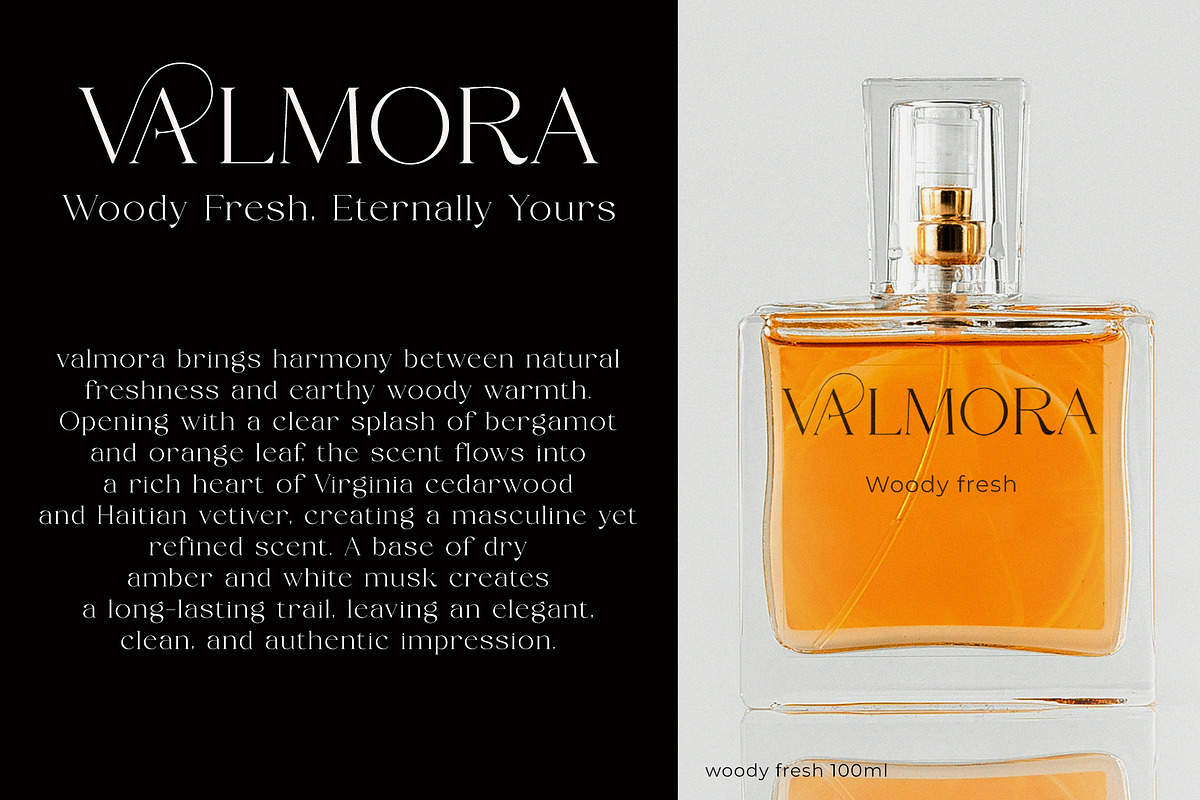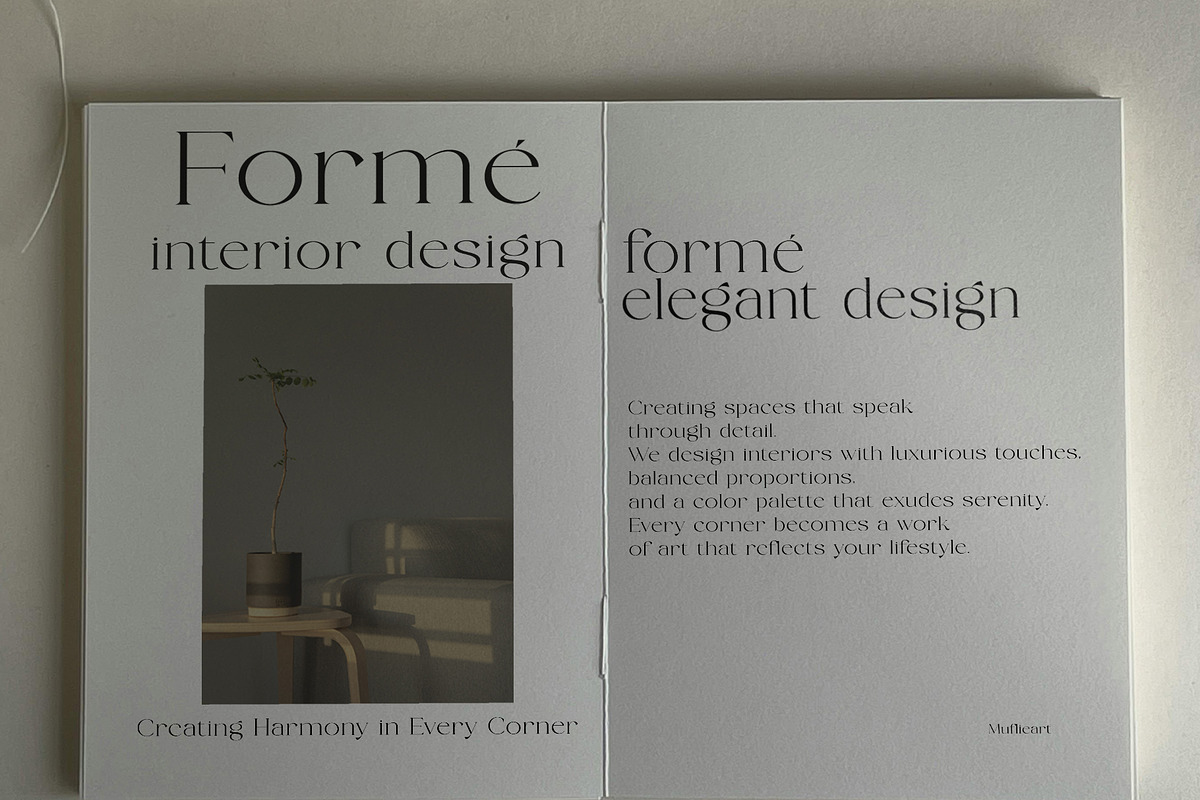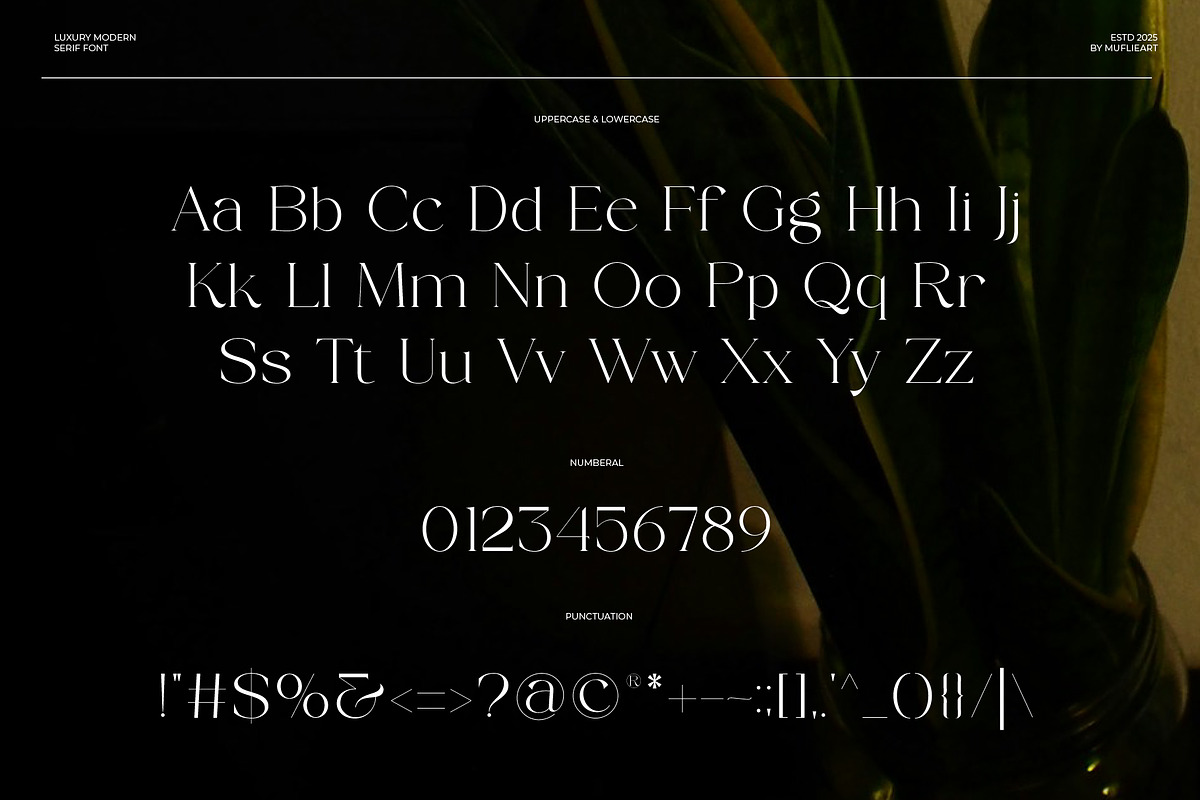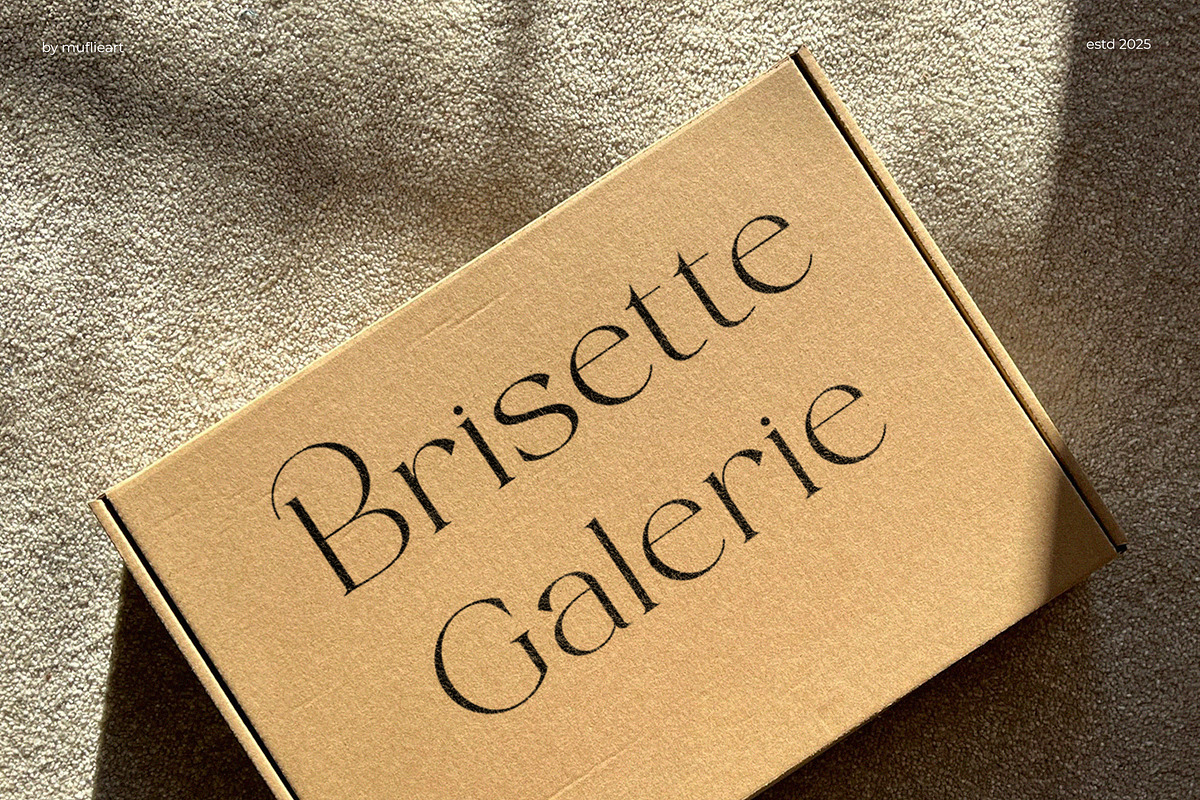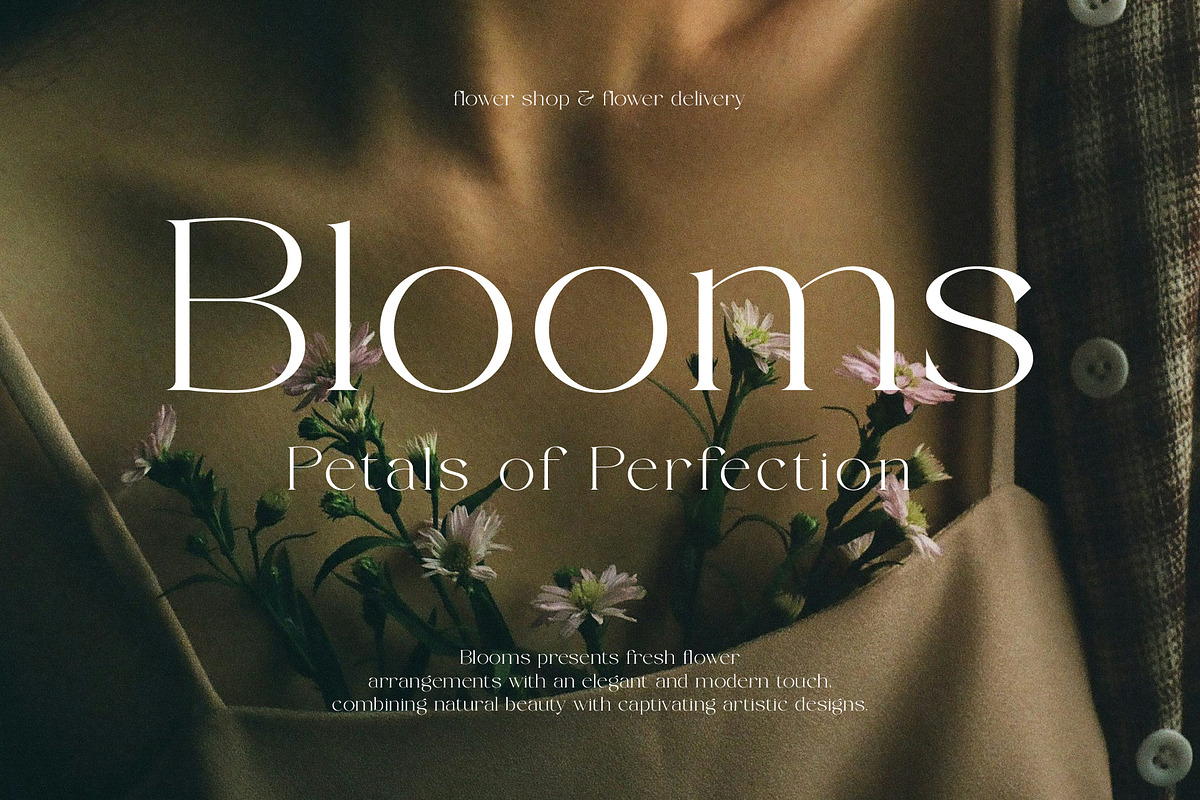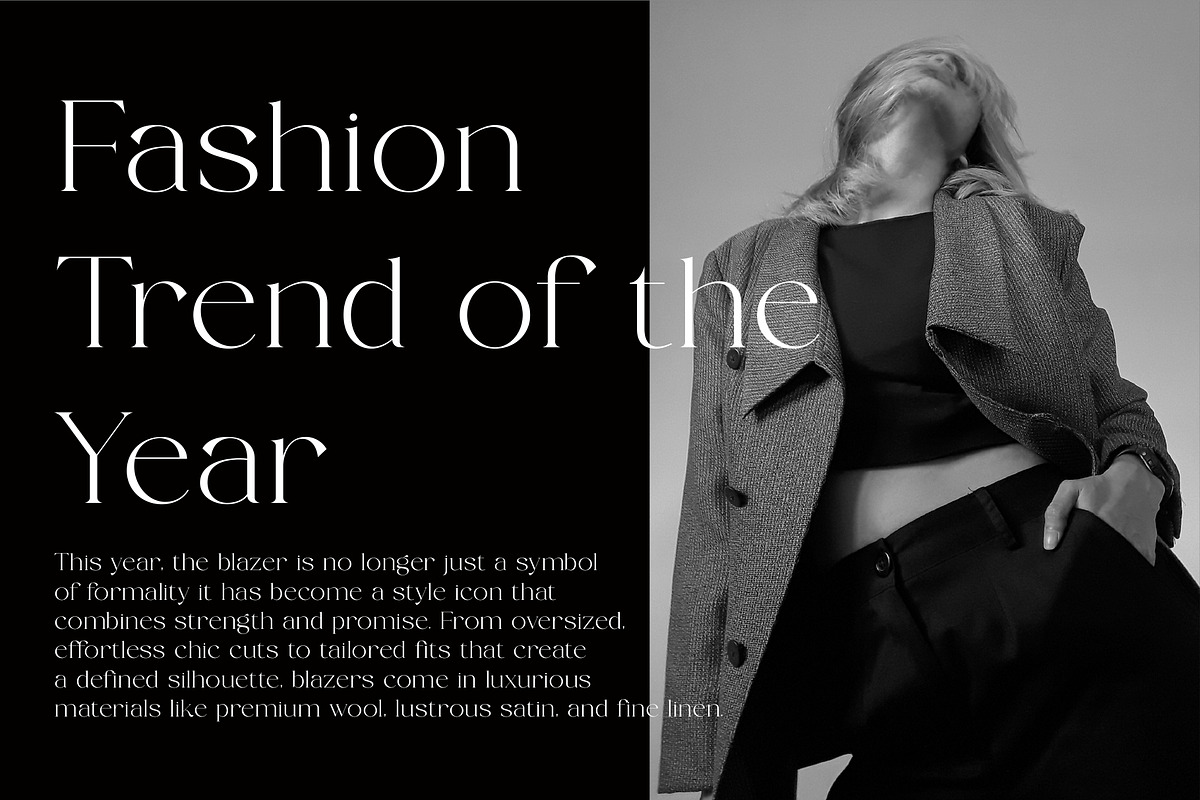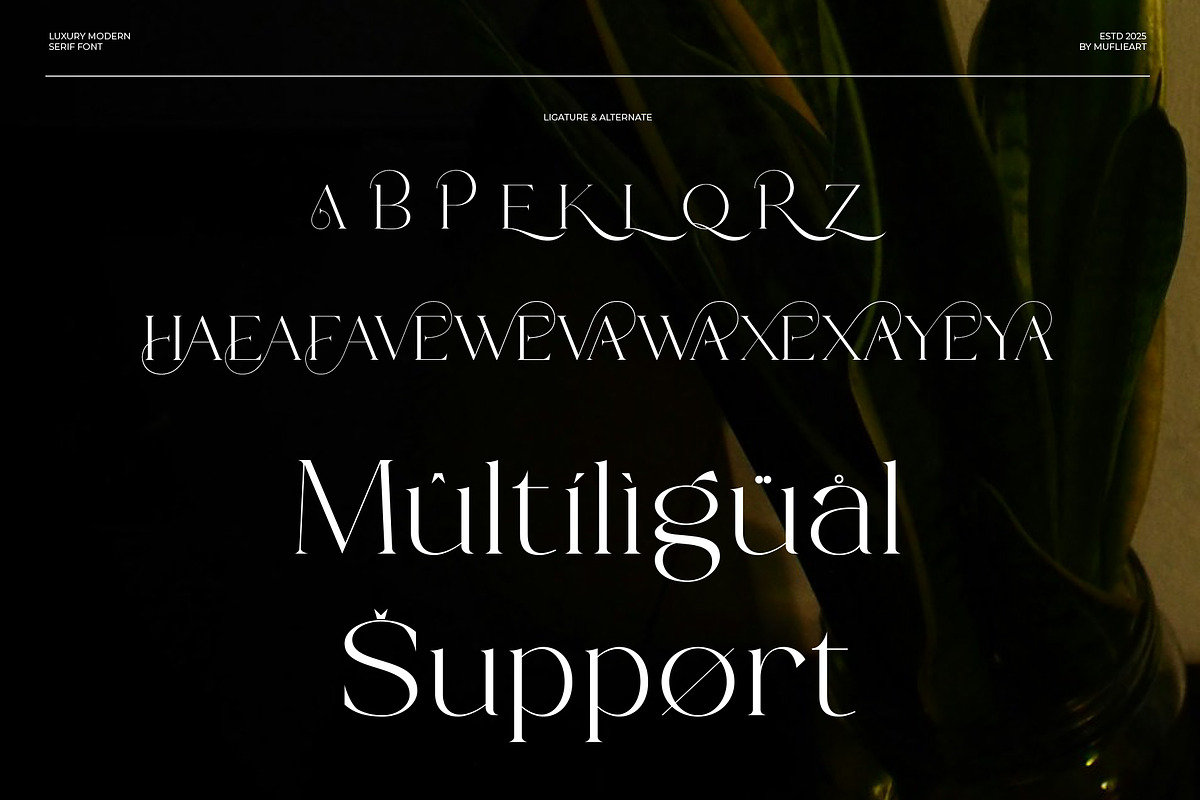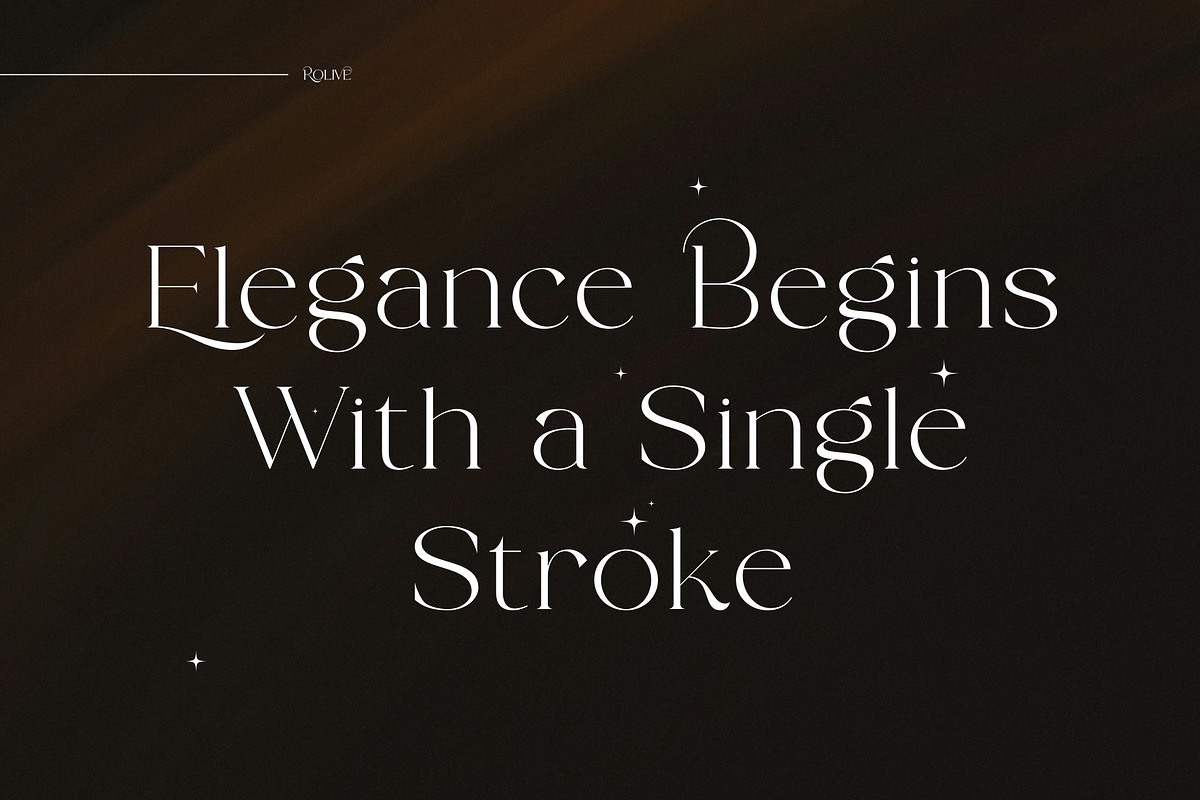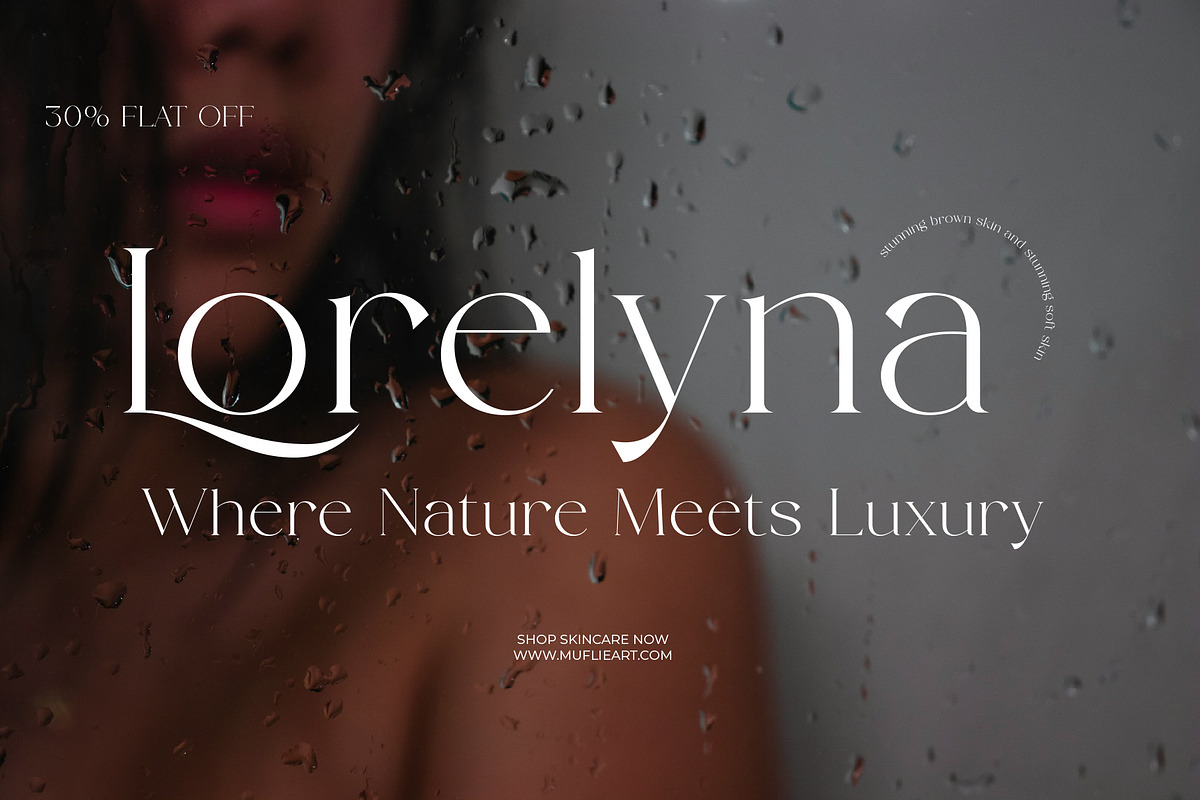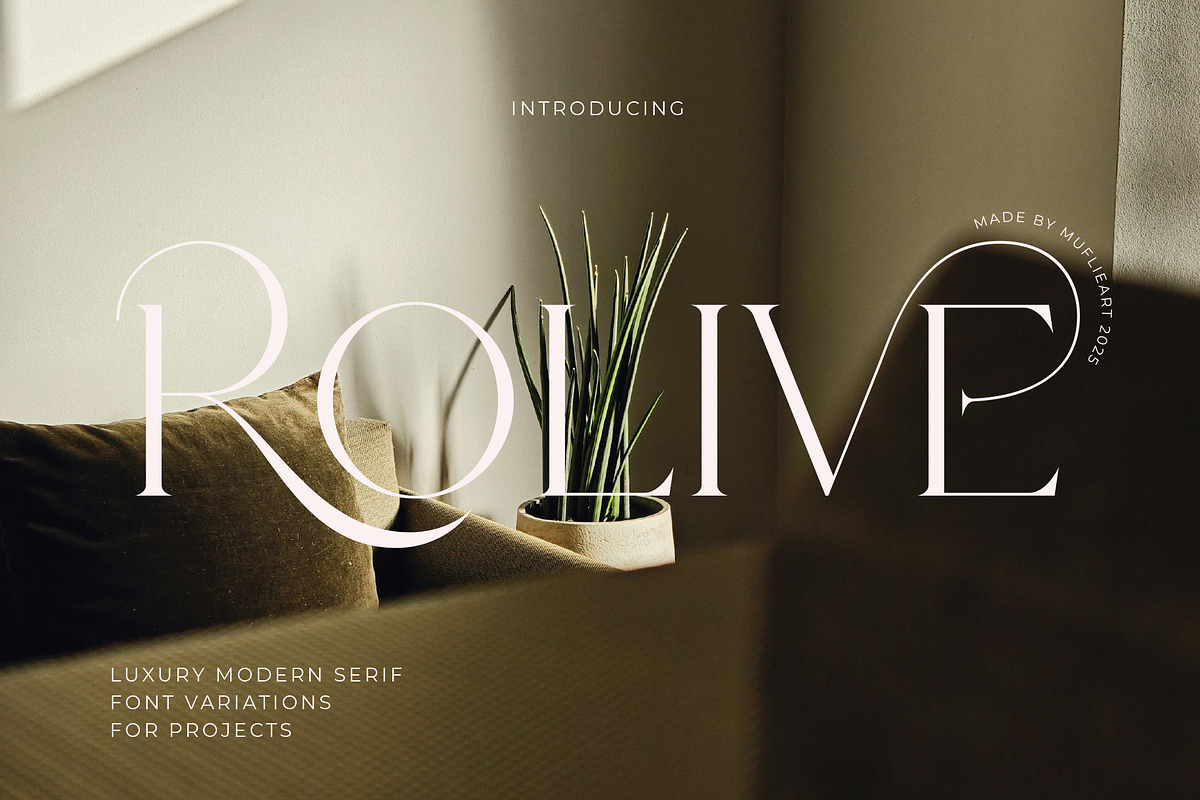
Rolive - Luxury Modern Serif
Rolive features unique and classy capital letters A to Z and also comes with unique alternates making Rolive a beautiful font that can be customized for various projects and jobs you want.
Rolive is perfect for: logos, brands, wedding invitations, business cards, greeting cards, posters, magazines, social media, agenda prints, and websites.
- Uppercase and lowercase letters
- Multilingual Characters
- Alternative styles and ligatures (on some fonts)